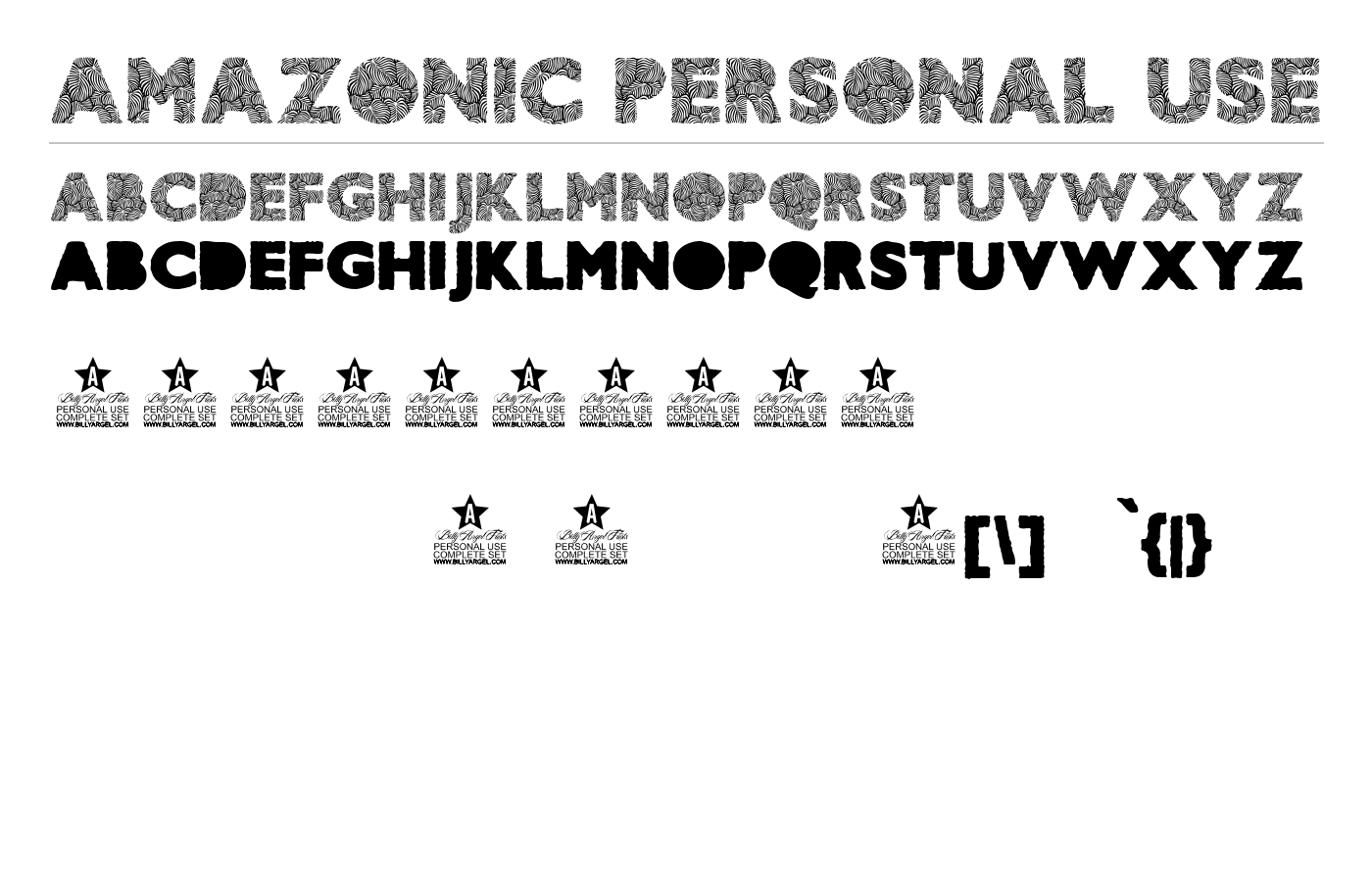
Amazonic Personal Use is a playful and bold display font characterized by its chunky, irregular letterforms and exotic, organic pattern fills that evoke a tropical or jungle vibe. Its heavy weight and textured style make it ideal for eye-catching headlines, posters, and creative branding projects that seek a fun and adventurous personality. This font works best for designs that want to stand out with a lively, natural feel while maintaining strong readability.
AMAZONIC PERSONAL USE Font
About AMAZONIC PERSONAL USE Font